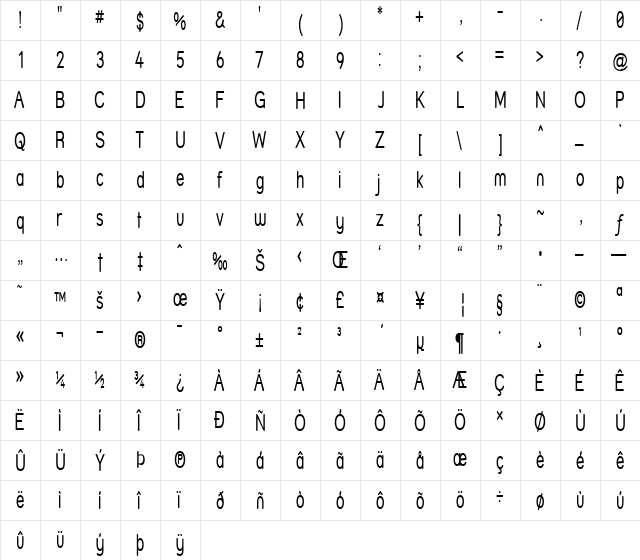
Street - Thin Regular
| Designer | Graham Meade |
Design Context for Street - Thin Typeface
Street - Thin takes a measured approach to typography — its balanced proportions and neutral character make it a reliable workhorse for both digital and print work. The delicate stroke weight brings airiness and refinement to layouts.